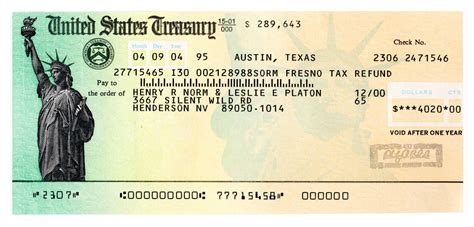
Stimulus Check Font. I'm interested in this as well. The capital letters specifically look very.
Publishing considers additional fonts for instances. I'm interested in this as well. Web the primary irs typeface is the helvetica font family. The capital letters specifically look very.
I'm interested in this as well. Web the primary irs typeface is the helvetica font family. I'm interested in this as well. Publishing considers additional fonts for instances. The capital letters specifically look very.